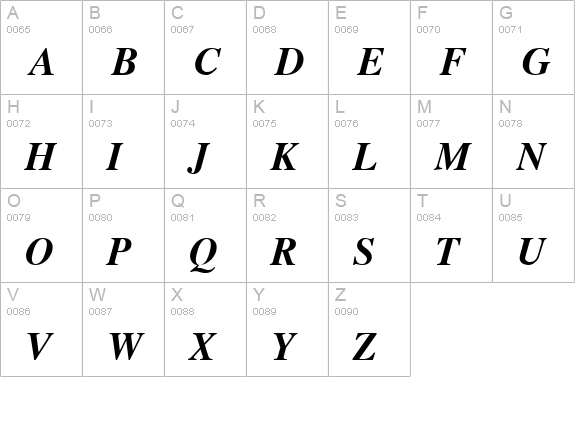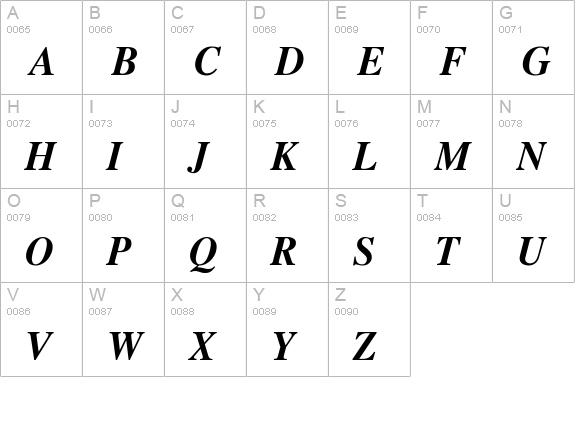
Cardiff Bold Italic Font Details
Cardiff Bold Italic is a strong, high-contrast, italic variant in the Cardiff typeface family \xE2\x80\x94 well suited to headlines, attention-grabbing titles, and strong calls-to-action.
Introducing Cardiff Bold Italic, a font that effortlessly combines elegance and modernity, making it the perfect choice for any design project. This versatile font boasts a strong and bold presence, with its distinctively slanted italic style adding a touch of sophistication to any text. Its meticulously crafted letterforms exude confidence and create a lasting impact. With its wide range of applications, Cardiff Bold Italic is ideal for headlines, titles, logos, branding materials, and more. Whether you're designing a magazine layout, creating eye-catching social media graphics, or crafting a professional presentation, this font will elevate your project to new heights. What sets Cardiff Bold Italic apart is not only its impeccable design, but also its accessibility. It is freely available to download at FontsMarket.com, allowing designers of all backgrounds to access this exceptional typeface without any cost. This font is a testament to the belief that great design should be available to everyone, empowering creativity and providing equal opportunities for all. Crafted with precision and passion, Cardiff Bold Italic seamlessly blends traditional elements with a contemporary touch. Its carefully balanced proportions and exquisite details ensure legibility and readability across various mediums and sizes. Each character is thoughtfully designed to harmonize with the others, creating a cohesive and visually pleasing composition. Whether you're aiming for a bold and impactful statement or a subtle and sophisticated look, Cardiff Bold Italic has you covered. Its versatility and timeless appeal make it a must-have addition to any designer's toolkit. Download Cardiff Bold Italic today from FontsMarket.com and unlock a world of endless creative possibilities. Embrace the freedom to design with confidence and let your imagination soar with this remarkable font.